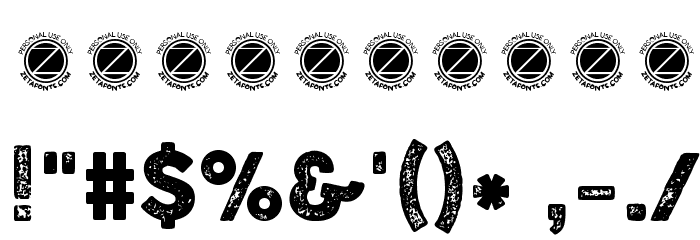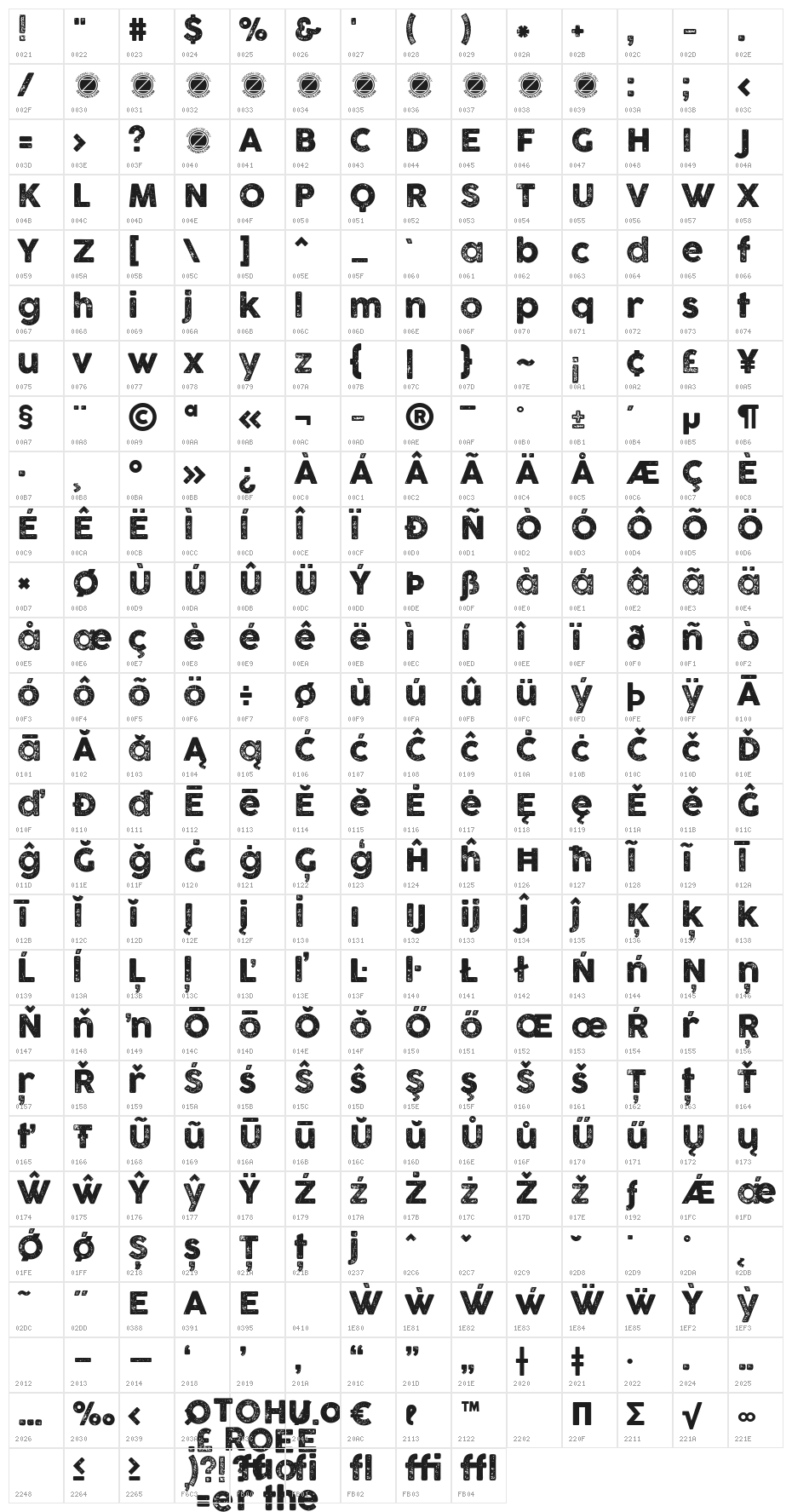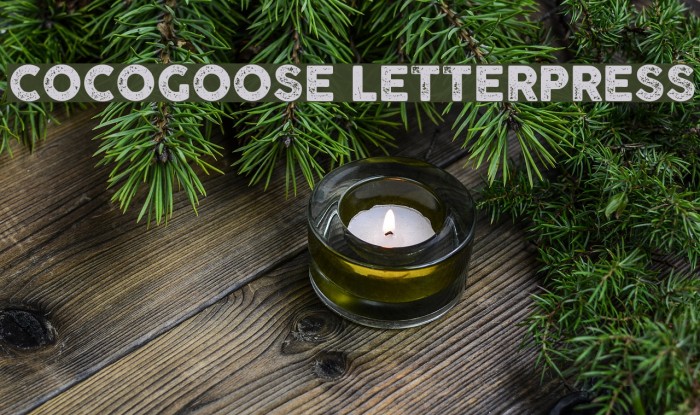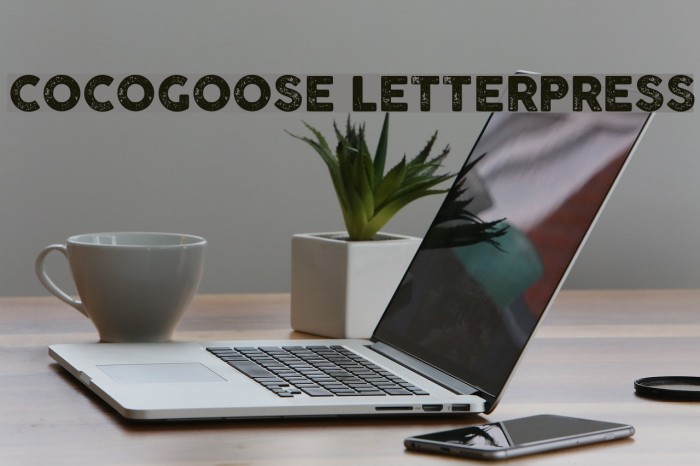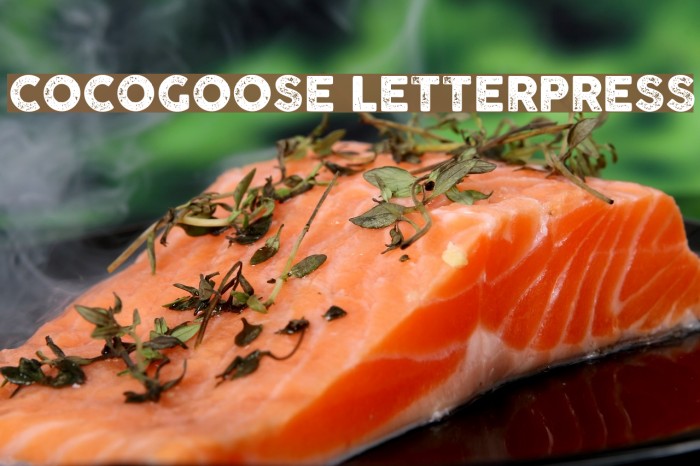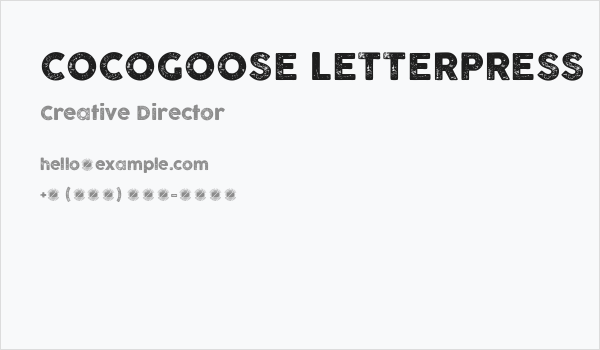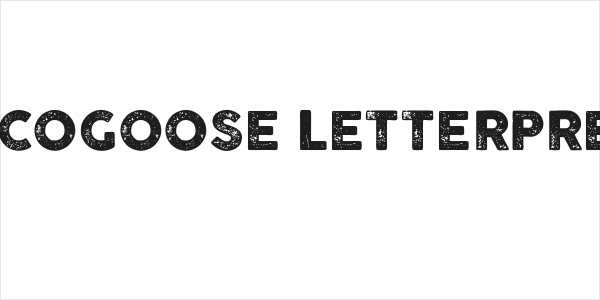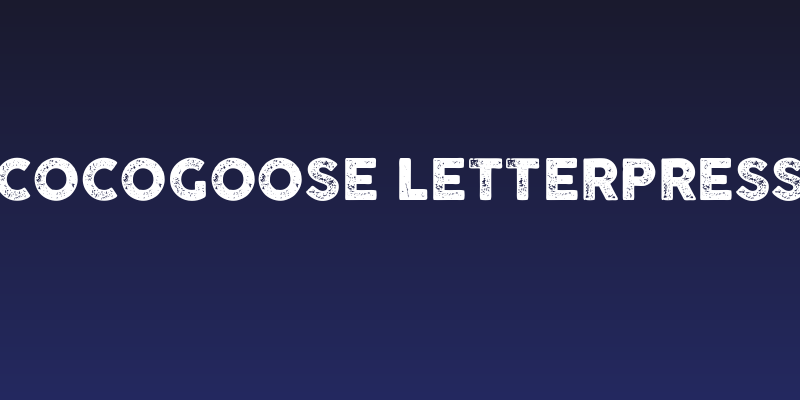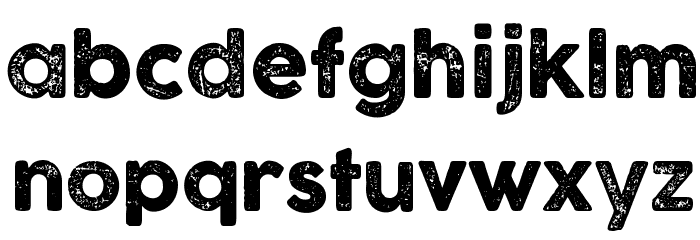
COCOGOOSE LETTERPRESS Font
COCOGOOSE LETTERPRESS Description
This font features a bold, distressed style with a letterpress effect, giving it a vintage and rugged appearance. The characters are thick and blocky, with a uniform width that maintains readability while adding a textured, worn look. The uppercase and lowercase letters are consistent in style, with rounded edges and a slightly condensed form. The numbers and special characters follow the same design, ensuring a cohesive look across all text. This font's unique texture makes it stand out, ideal for projects that require a touch of nostalgia or a handcrafted feel.
| Proposed Projects | Ideal for branding, posters, packaging, and any design needing a vintage or handcrafted aesthetic. |